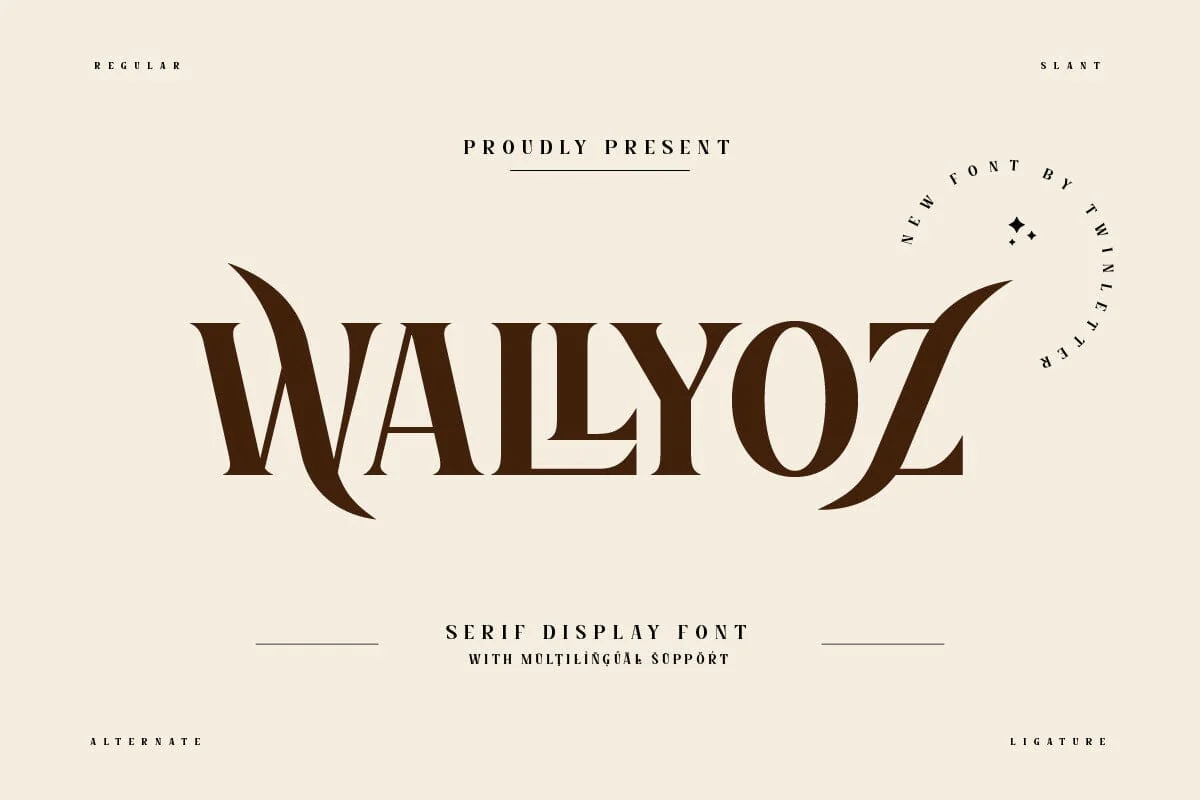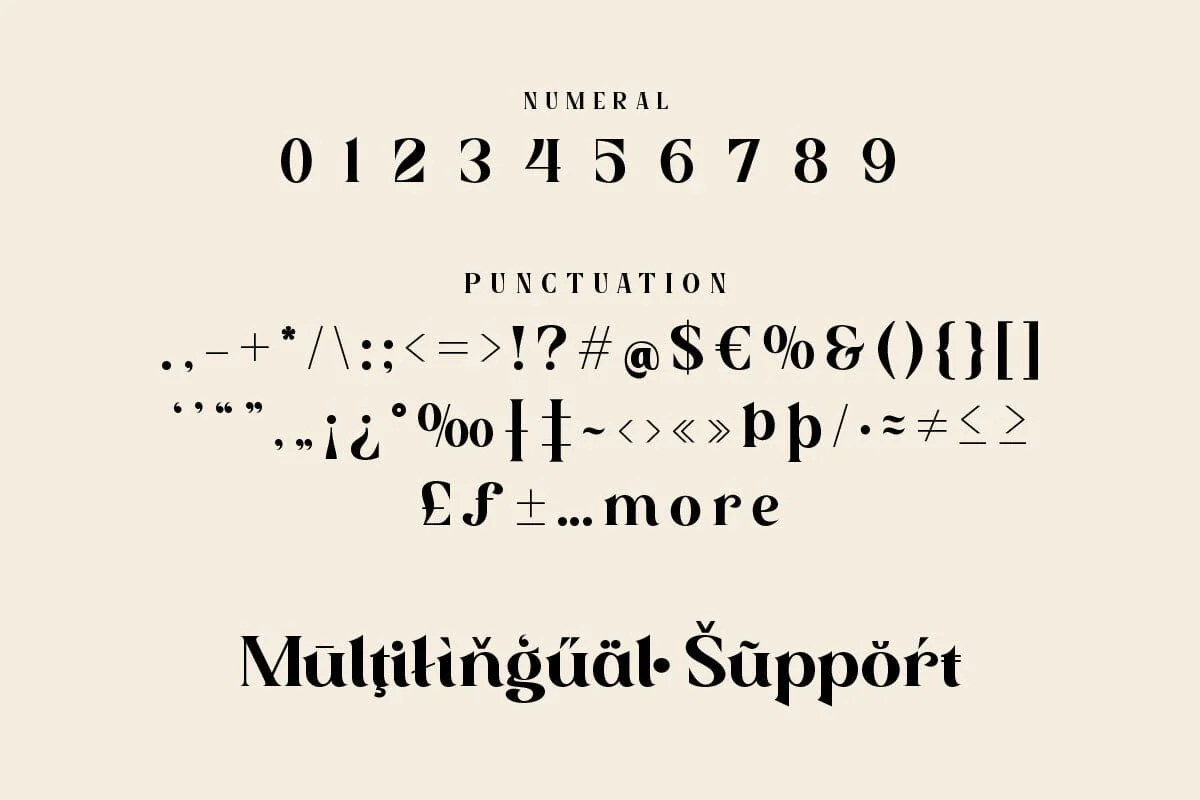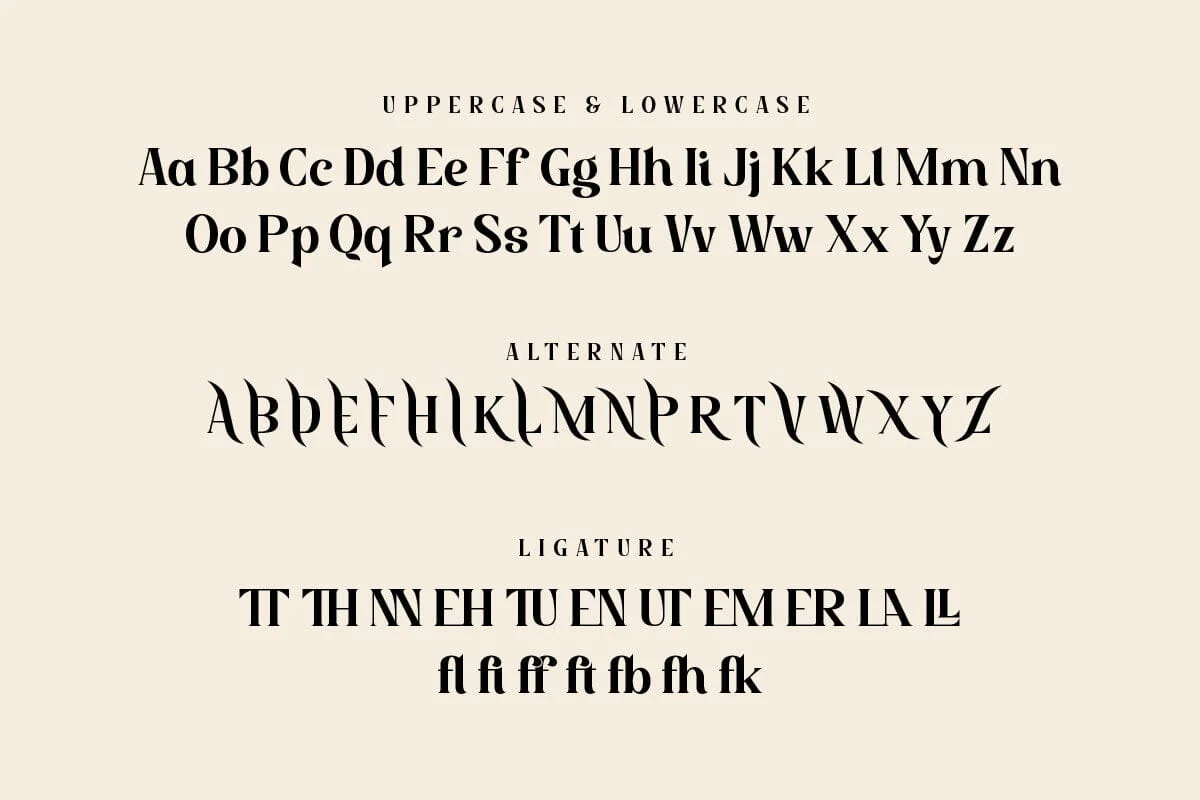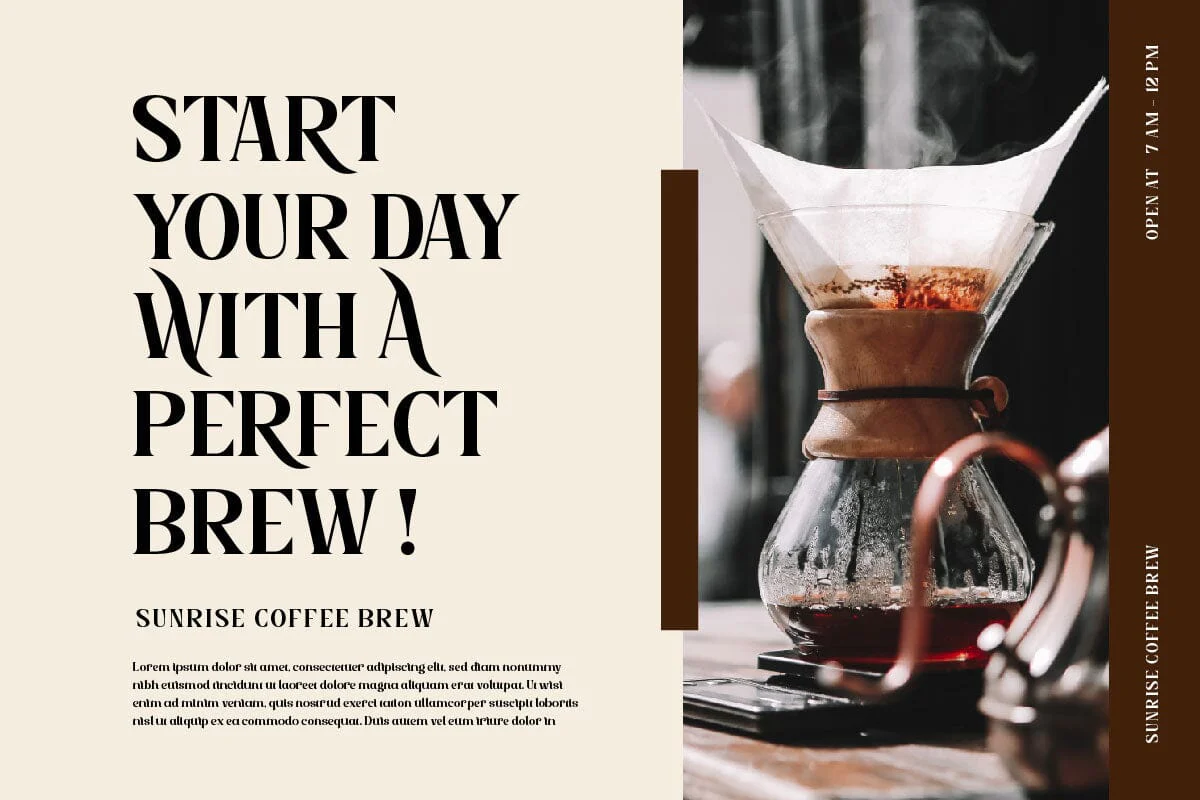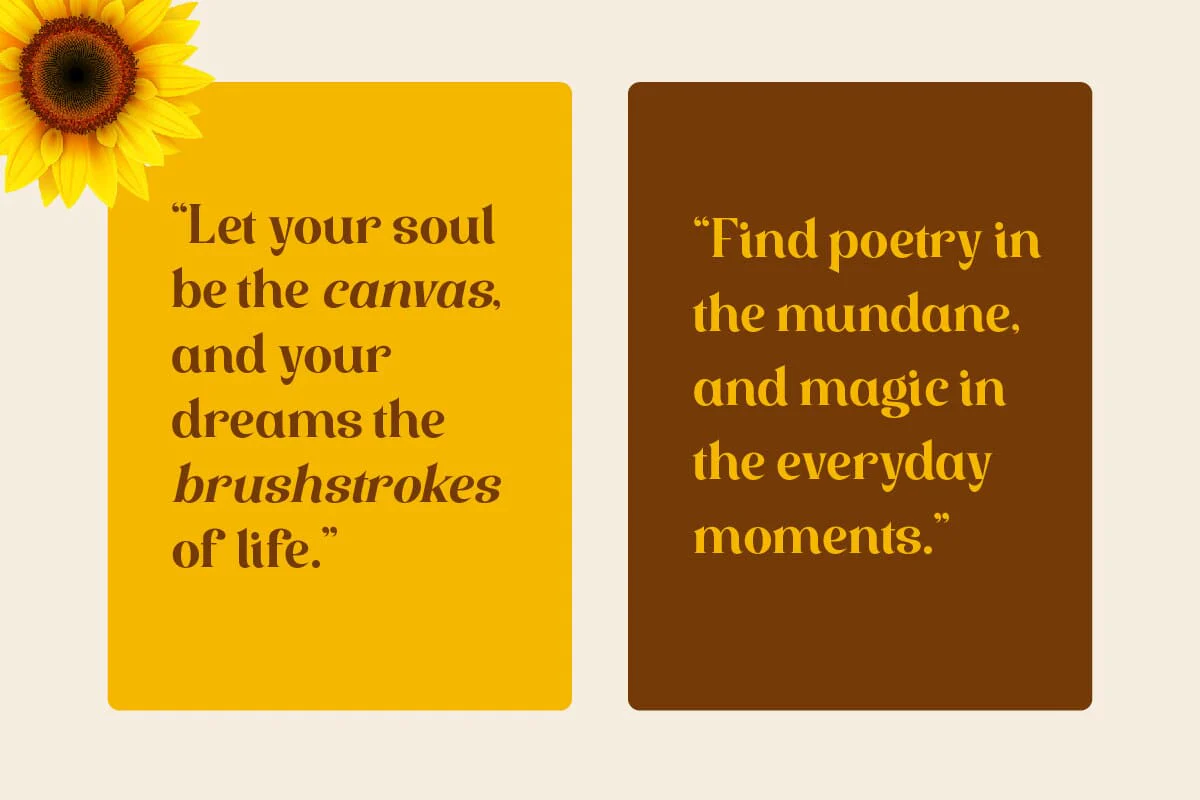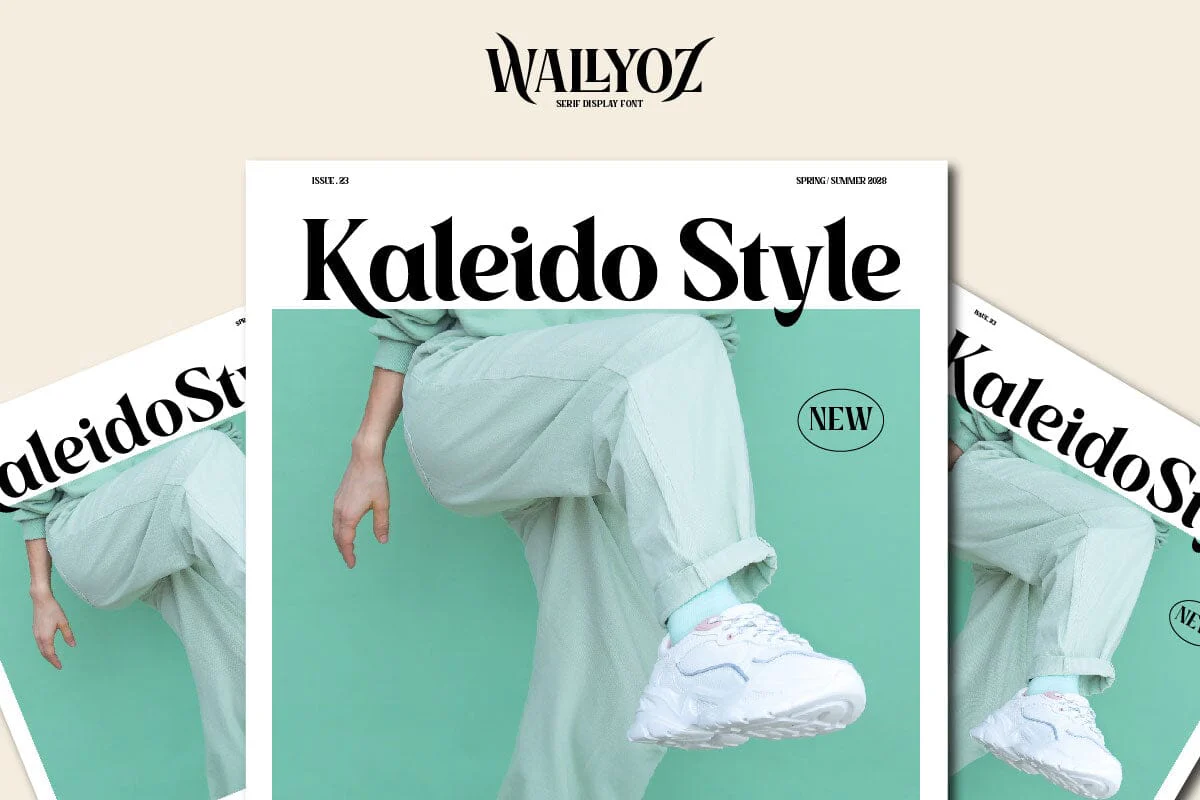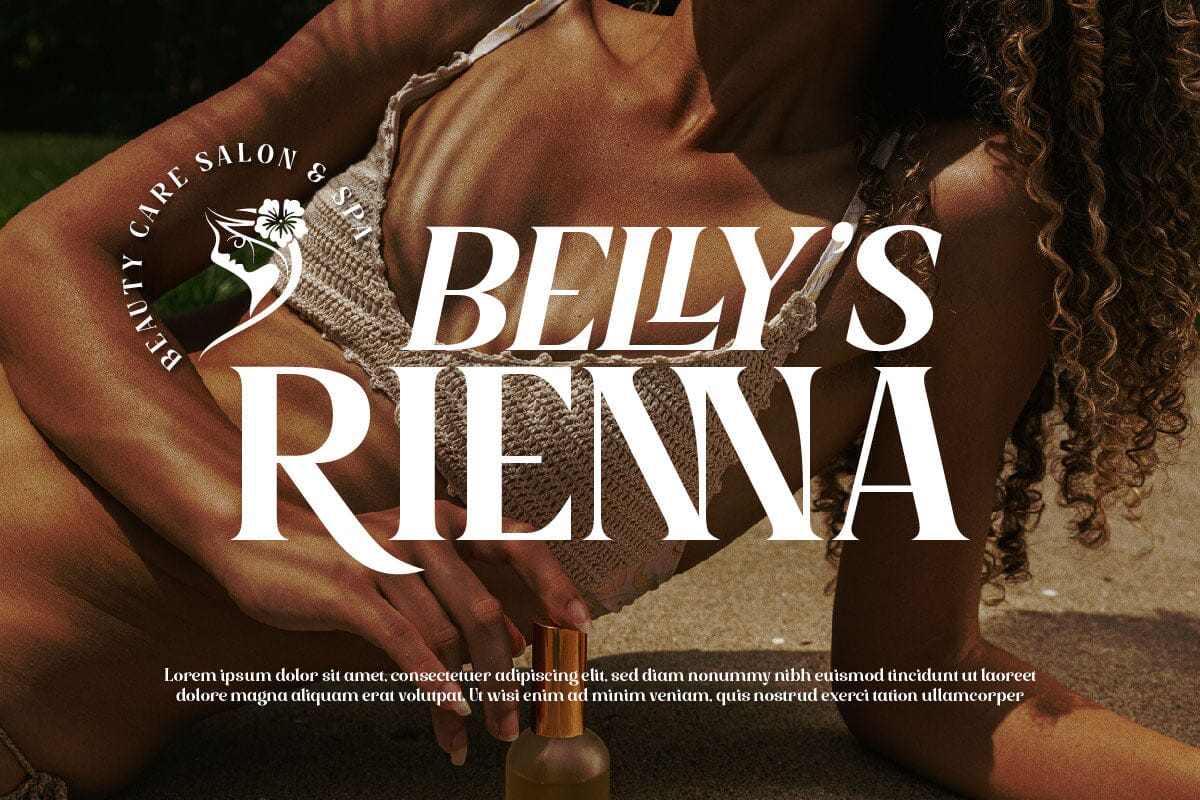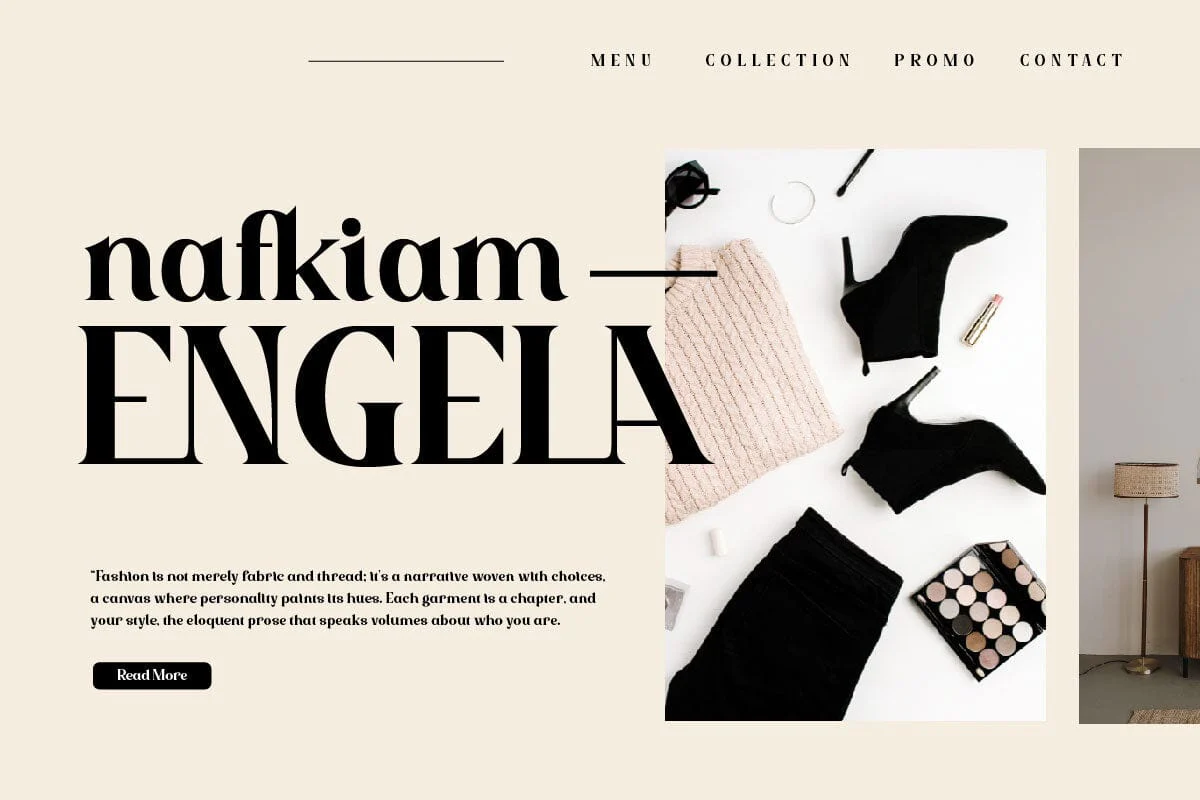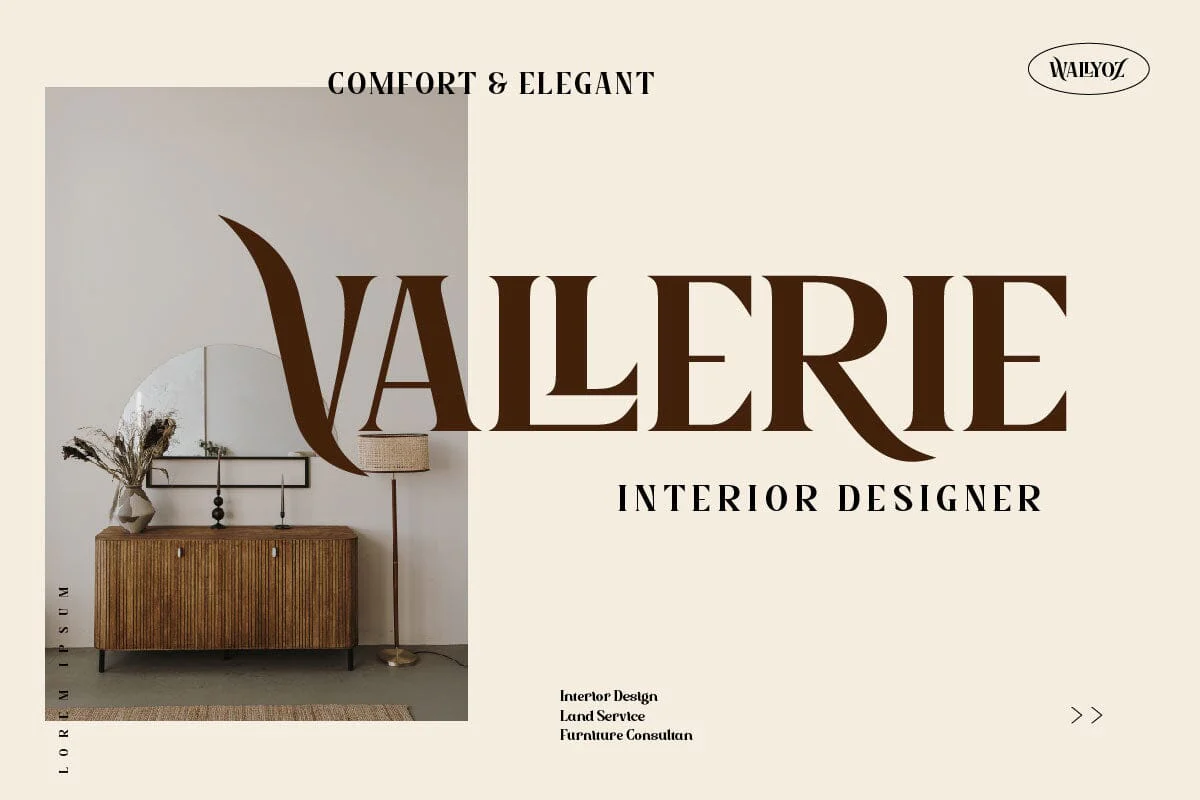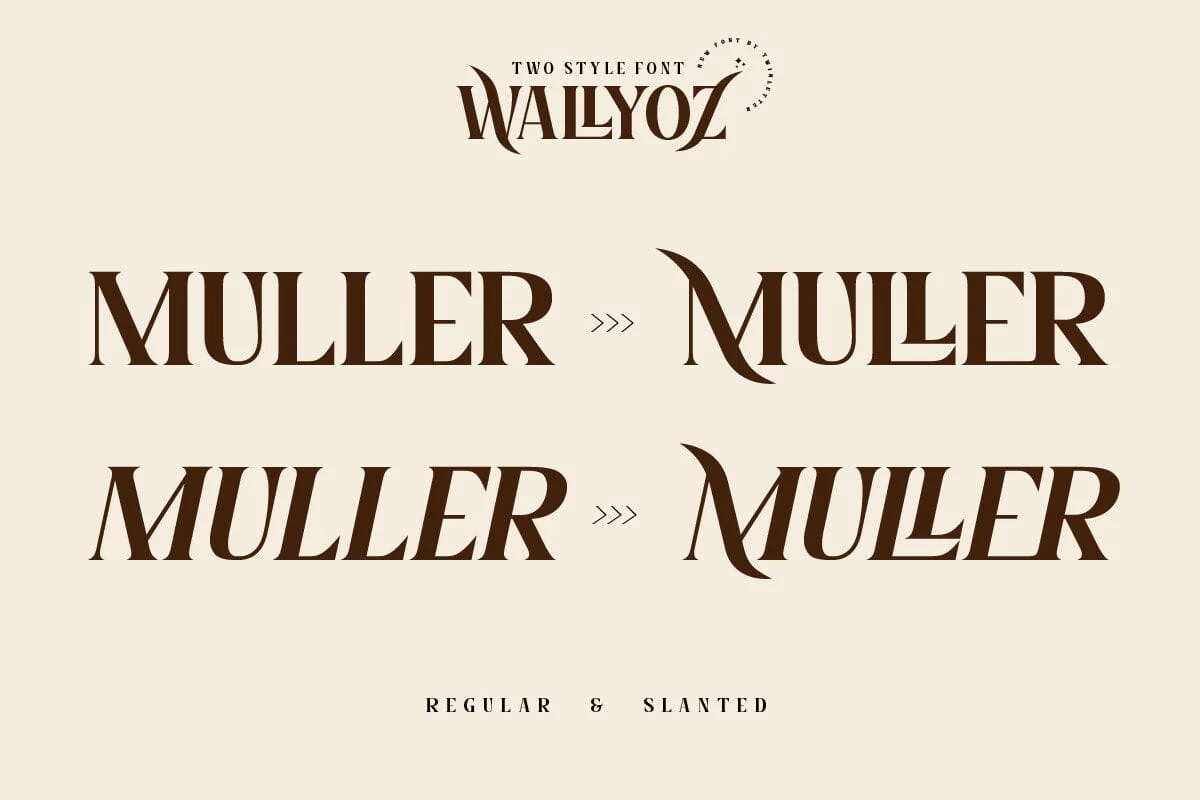
Wallyoz - Serif Display Font
Wallyoz is a Serif Display typeface that presents a combination of traditional impressions with a contemporary touch. This font is designed to give an elegant and professional appearance to design projects, especially display elements such as titles, headings, or logos.
Each letter in Wallyoz provides a touch of classicism and elegance. However, this font retains modern elements, striking a balance between an understated aesthetic and typographic beauty. Visible serifs in each letter create clarity and readability.
This font is suitable for use in various design contexts, from editorial design, and branding, to corporate projects.
Wallyoz exudes the elegance and boldness often associated with serif fonts, so this font can be a solid choice for those looking for a formal, professional look without losing a touch of the classic aesthetic.
Wallyoz is a Serif Display typeface that presents a combination of traditional impressions with a contemporary touch. This font is designed to give an elegant and professional appearance to design projects, especially display elements such as titles, headings, or logos.
Each letter in Wallyoz provides a touch of classicism and elegance. However, this font retains modern elements, striking a balance between an understated aesthetic and typographic beauty. Visible serifs in each letter create clarity and readability.
This font is suitable for use in various design contexts, from editorial design, and branding, to corporate projects.
Wallyoz exudes the elegance and boldness often associated with serif fonts, so this font can be a solid choice for those looking for a formal, professional look without losing a touch of the classic aesthetic.